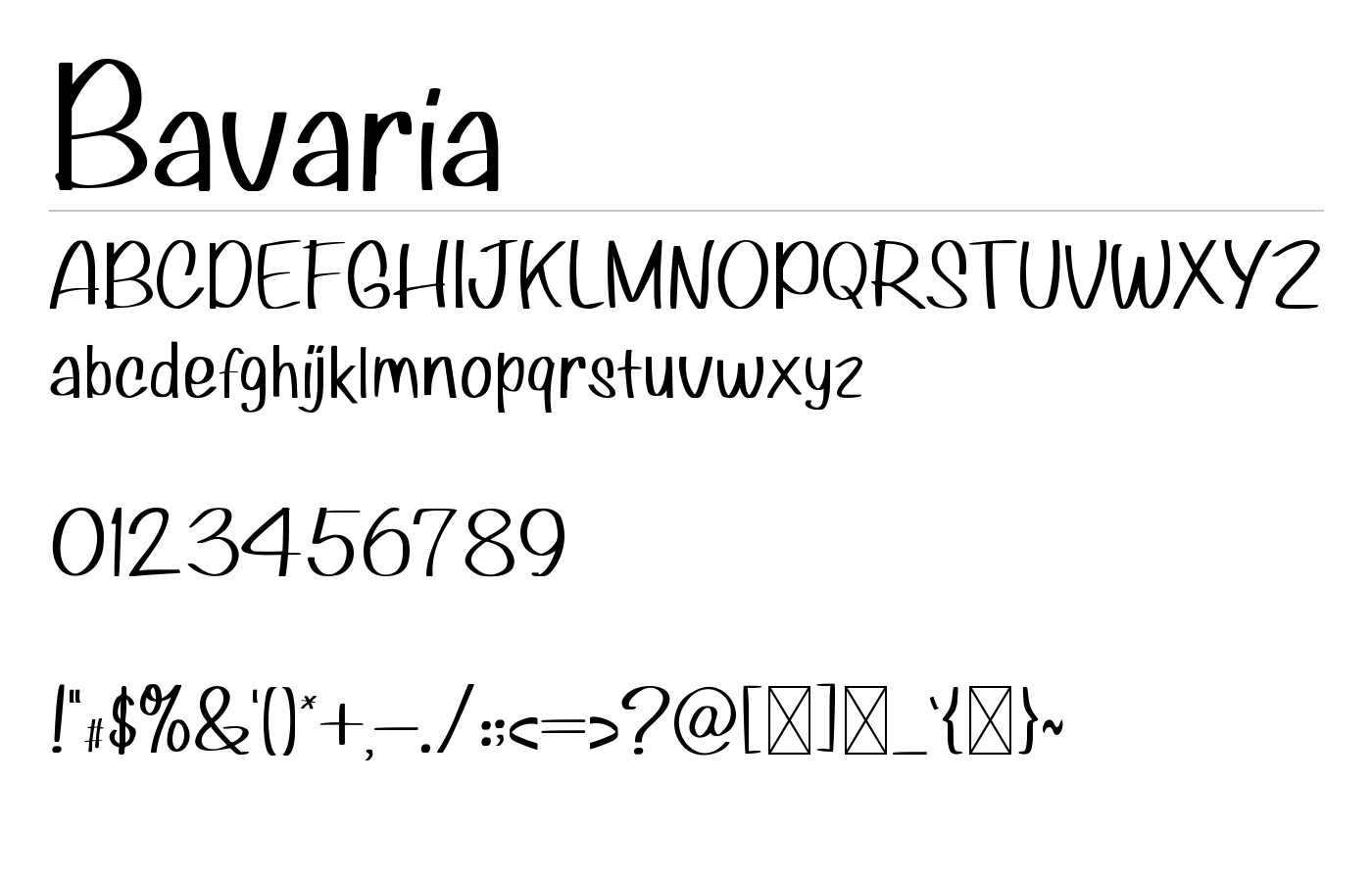
Bavaria is a playful, hand-drawn serif font that combines quirky, slightly irregular letterforms with a light weight and moderate contrast, giving it a casual and approachable feel. Its unique shapes and subtle calligraphic touches make it ideal for creative branding, children’s books, or any project seeking a whimsical, friendly personality with a hint of elegance. This font works well in headlines or display settings where its distinctive style can shine.
Bavaria Font
About Bavaria Font
| Font family | Bavaria Font |
| Designer | Dian Mariesta |